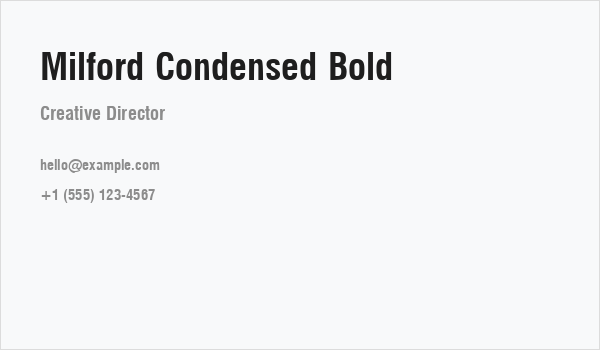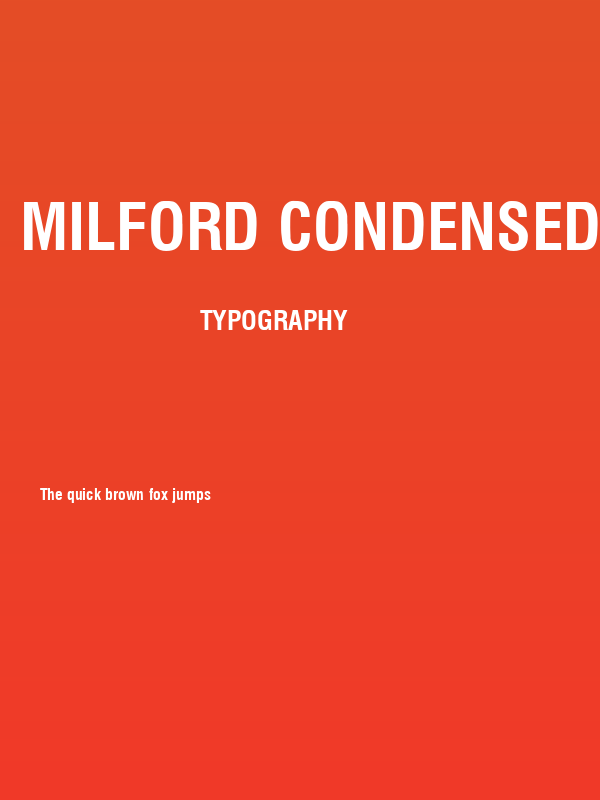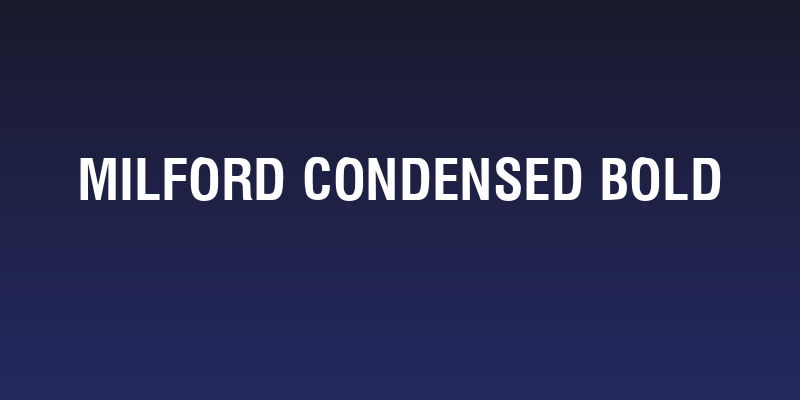
Milford Condensed Bold Font
Milford Condensed Bold Description
This font features a bold and condensed style, characterized by its strong and impactful appearance. The uppercase and lowercase letters are uniformly designed with a consistent stroke weight, giving it a cohesive look. The numerals and special characters maintain the same boldness, ensuring readability and emphasis. The condensed nature of the font allows for efficient use of space, making it suitable for headlines and titles where impact is essential. The clean and straightforward design makes it versatile for various applications, from advertising to branding.
| Use Case | Headlines, Logos, Advertising |
| Proposed Projects | This font is perfect for projects that require strong visual impact, such as posters, banners, and magazine covers. It can also be used effectively in branding and advertising materials where space is limited but emphasis is needed. |